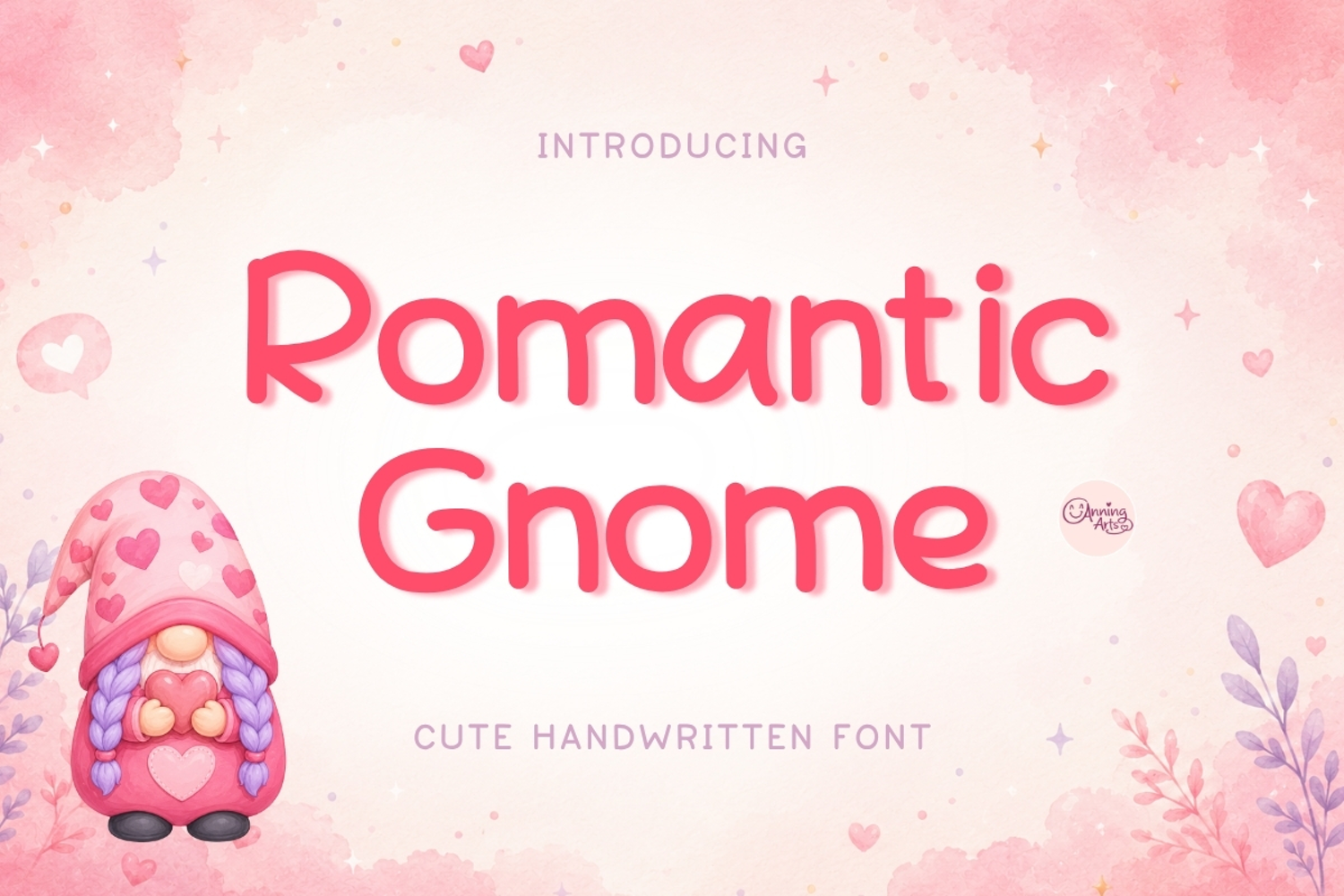
Romantic Gnome is a cute handwritten font with soft rounded letters, clean strokes, and a sweet romantic feel. Its friendly handwritten style is easy to read while still feeling playful, warm, and charming. This font works well for both short quotes and decorative text, especially for love-themed, handmade, and giftable designs.
The font includes uppercase letters, lowercase letters, numbers, and punctuation, making it a versatile choice for seasonal and everyday creative projects.
Perfect for Valentine’s Day designs, love quotes, gift tags, thank you cards, greeting cards, stickers, planners, journals, handmade packaging, Cricut and Silhouette projects.